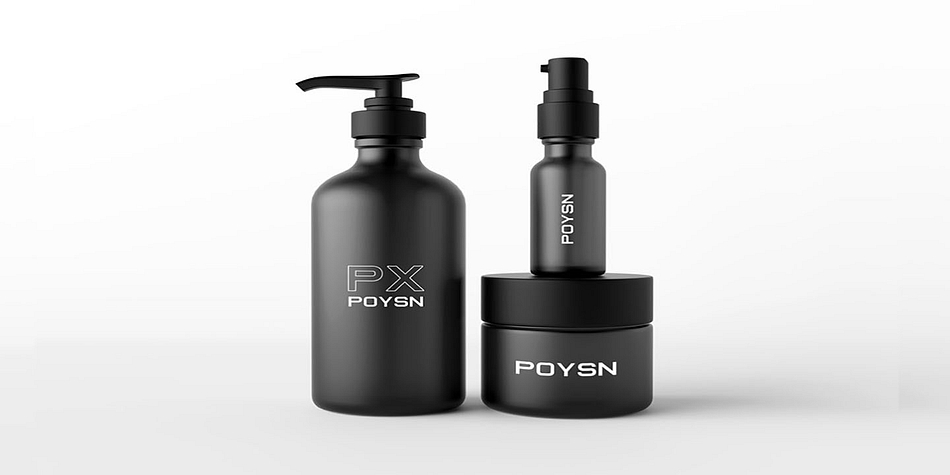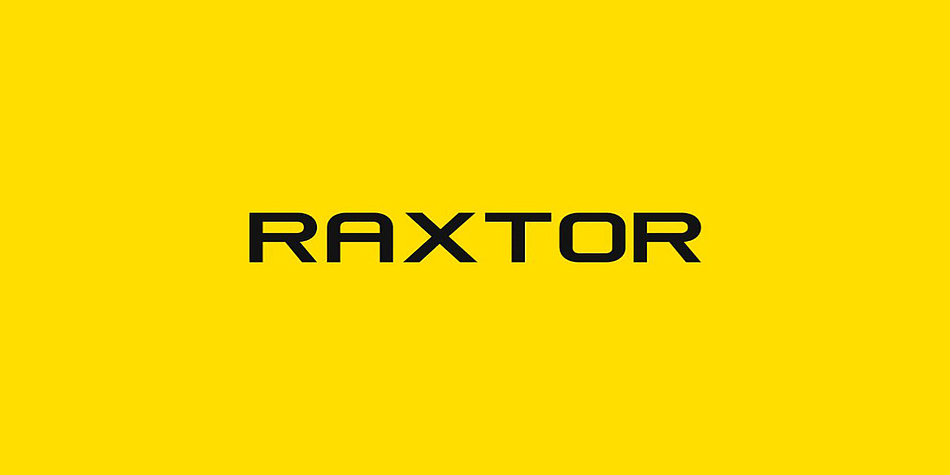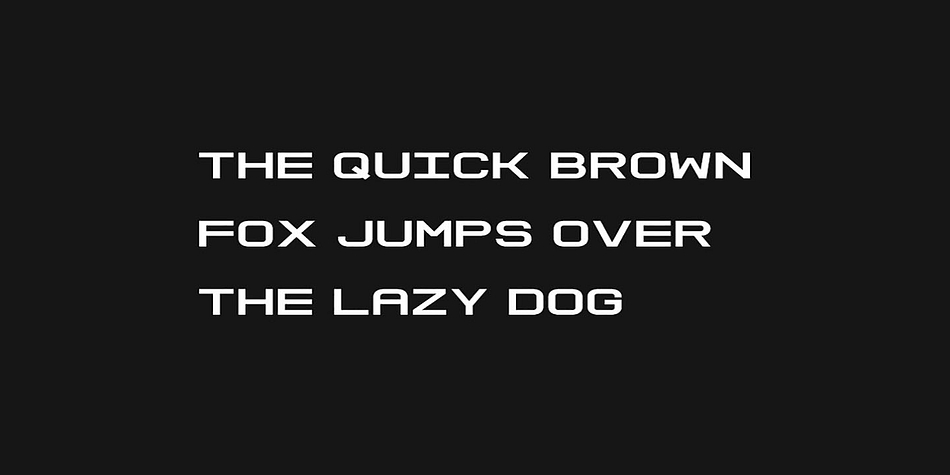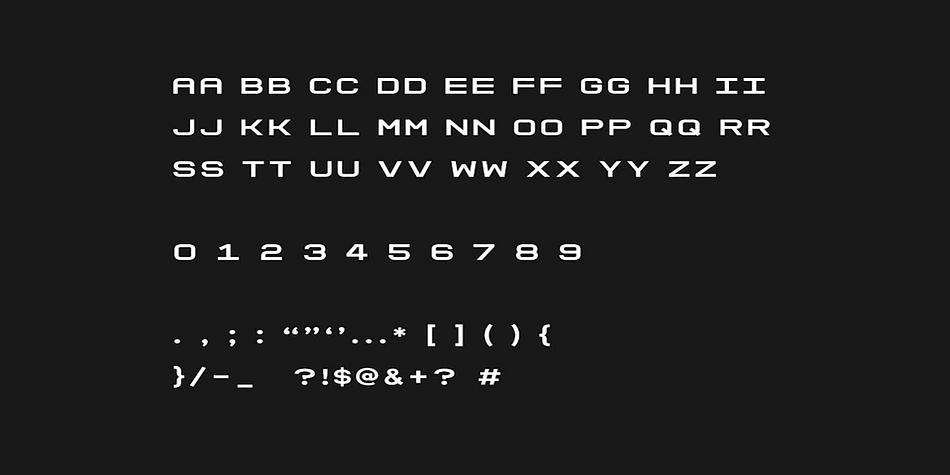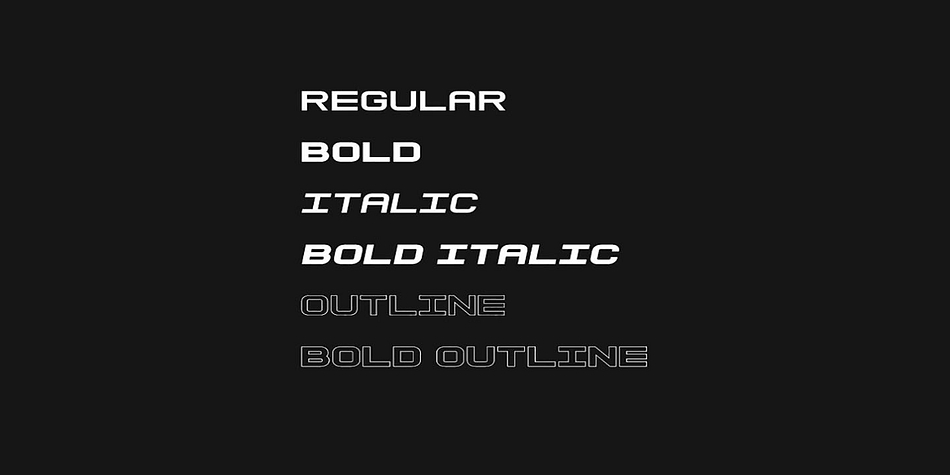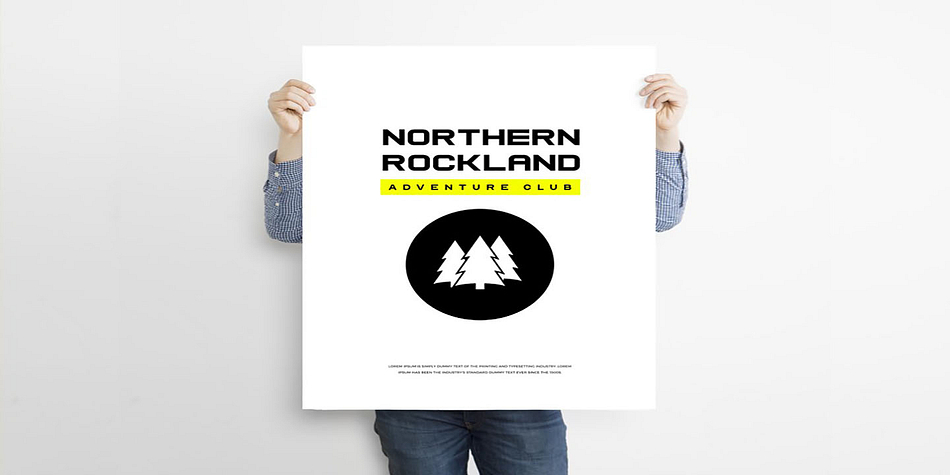
RAXTOR
RAXTOR is a display sans font family. This typeface has six styles and was published by Fontastica.
RAXTOR is a unique typeface for headlines, big text, branding, logotypes & display usage. This all-caps typeface is also perfect for creating great logos, promotional content and marketing graphics that lift the creative aspects of the design. Please see the examples shown above to get an idea about the capability of this typeface.
RAXTOR comes with two weights (Regular & Bold) and three styles (Normal, Italic & Outline). The pack contains Dekstop Fonts (OTF, TTF) as well as Web Fonts (EOT, SVG, TTF, WOFF, WOFF2) as options.